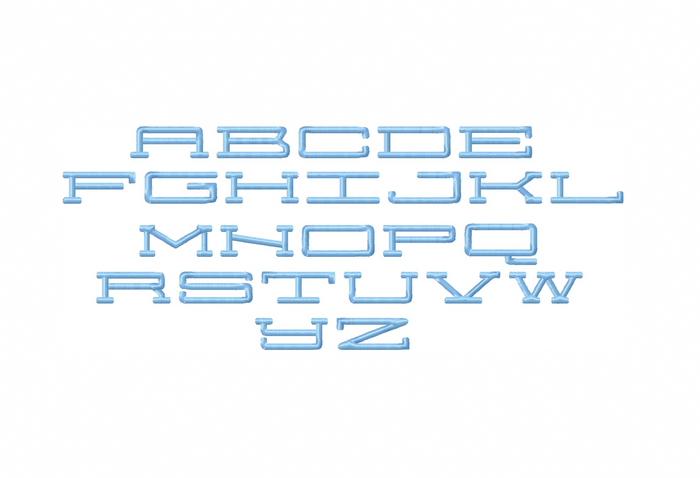
Small Jackson Satin Embroidery Font
Introducing the Small Jackson Satin Embroidery Font, designed for crafters looking to add a personal touch to their projects. This single-color monogram font features elegant satin stitches that enhance your embroidery creations. Available in sizes 1", 1.5", and 2", it allows for versatility in any design.